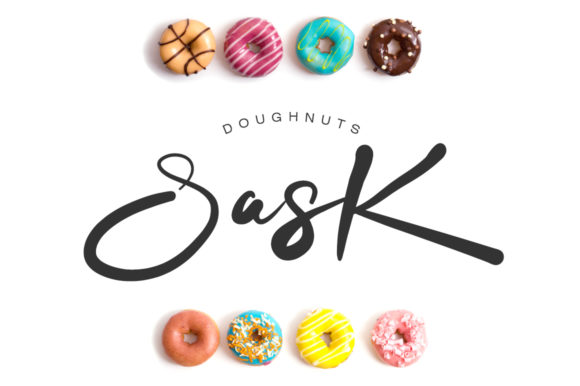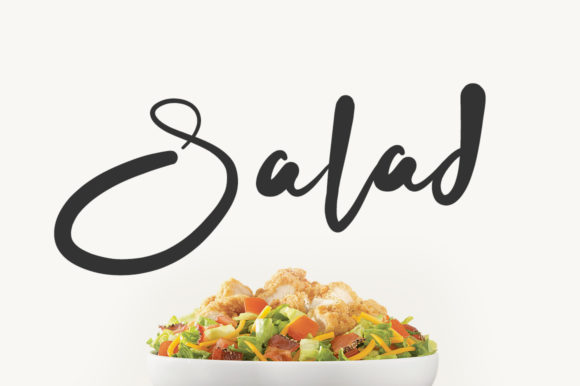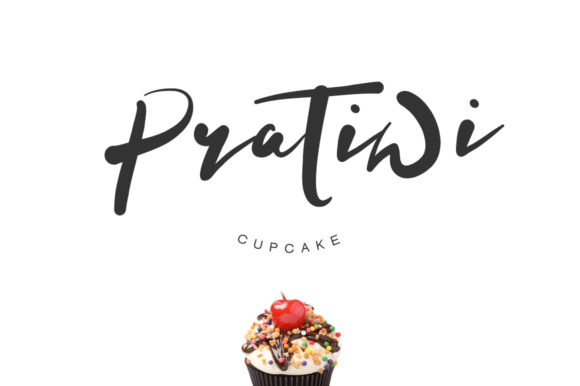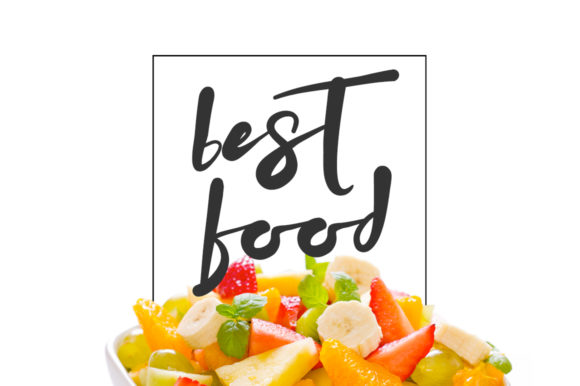
Introduction to Masto Font Font
Fonts play a crucial role in design, and the Masto Font font is a typeface that brings both character and versatility to any project. Whether you’re working on a branding project, a website, or a print design, the Masto Font font offers a unique style that can elevate your work.
Masto is a bold yet relaxed handwritten font.
It has a beautiful flow and it sends a wonderful vibe to your creations .
The Masto Font font is more than just a typeface – it’s a design tool that helps you communicate your message with style and clarity. Its unique character set and versatile design make it suitable for a wide range of applications, from elegant invitations to bold headlines.
With its carefully crafted letterforms and balanced proportions, the Masto Font font ensures readability and visual appeal across all mediums.
The Masto Font font stands out with its unique design, exceptional readability, and versatility across various design applications.